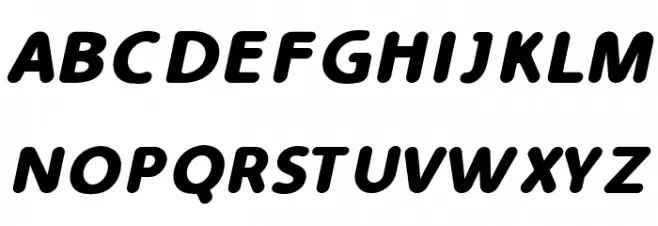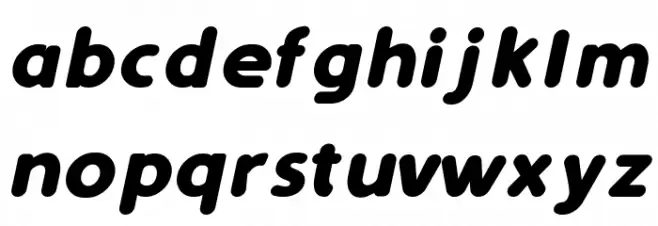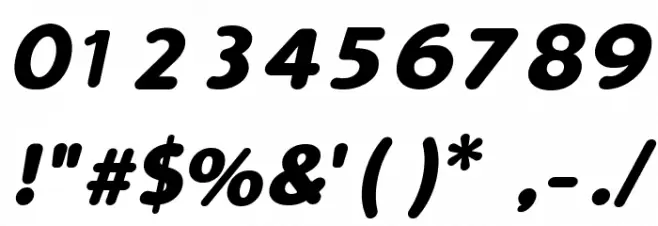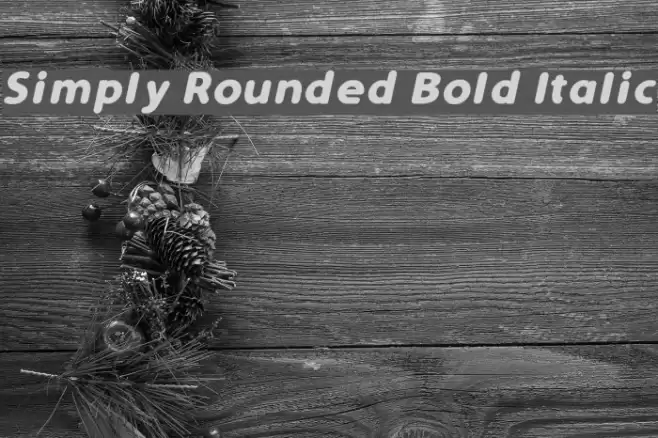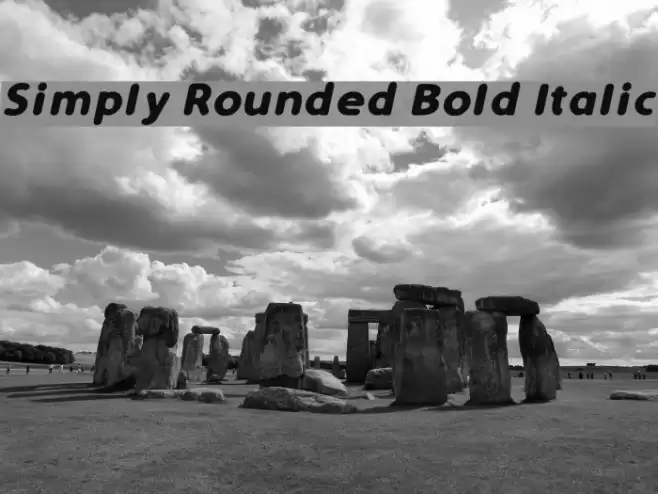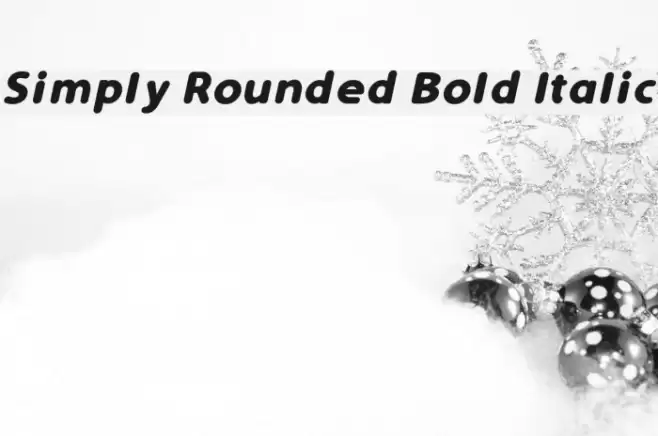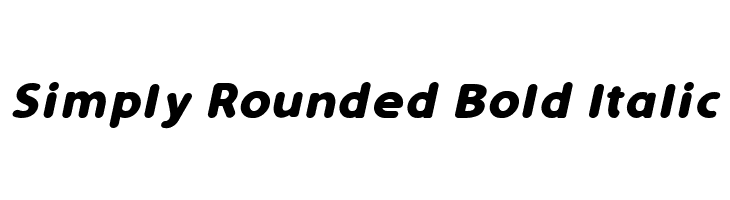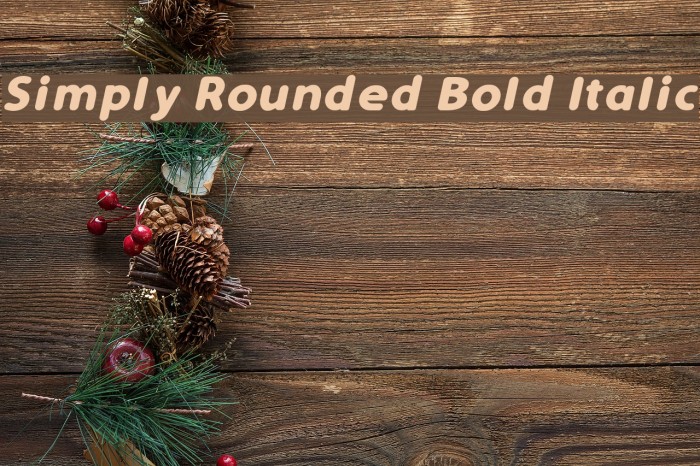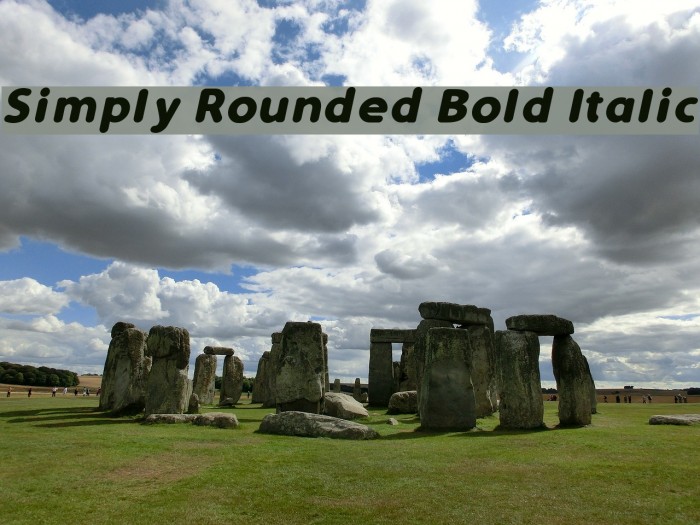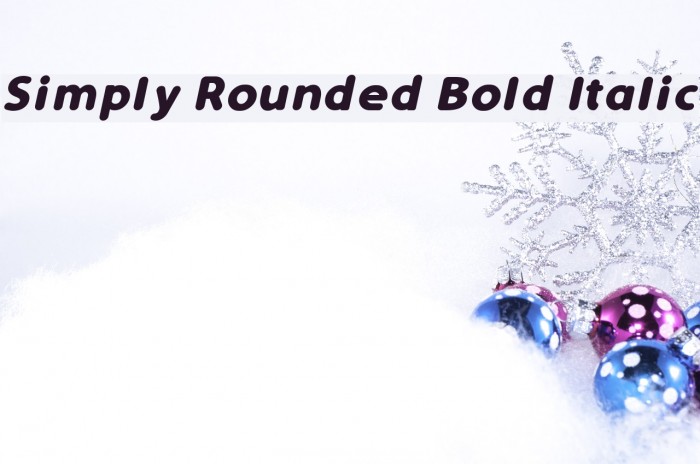
Simply Rounded Bold Italic
This font features a bold and rounded style with a smooth, flowing italic slant. The characters are well-defined with a consistent thickness, giving them a strong presence. The rounded edges contribute to a friendly and approachable appearance, making it suitable for various design contexts. The italic angle adds a sense of motion and dynamism, enhancing its visual appeal. This font maintains clarity and readability, even at smaller sizes, due to its balanced proportions and clean lines. It includes a full set of uppercase and lowercase letters, numerals, and a variety of punctuation marks and special characters, ensuring versatility in usage.
A bold, rounded, and italic font with a friendly and dynamic style.
- Proposed Projects: Ideal for branding, advertising, packaging, and any project that requires a modern and approachable look.
- Use Case: Headlines, Logos, Branding